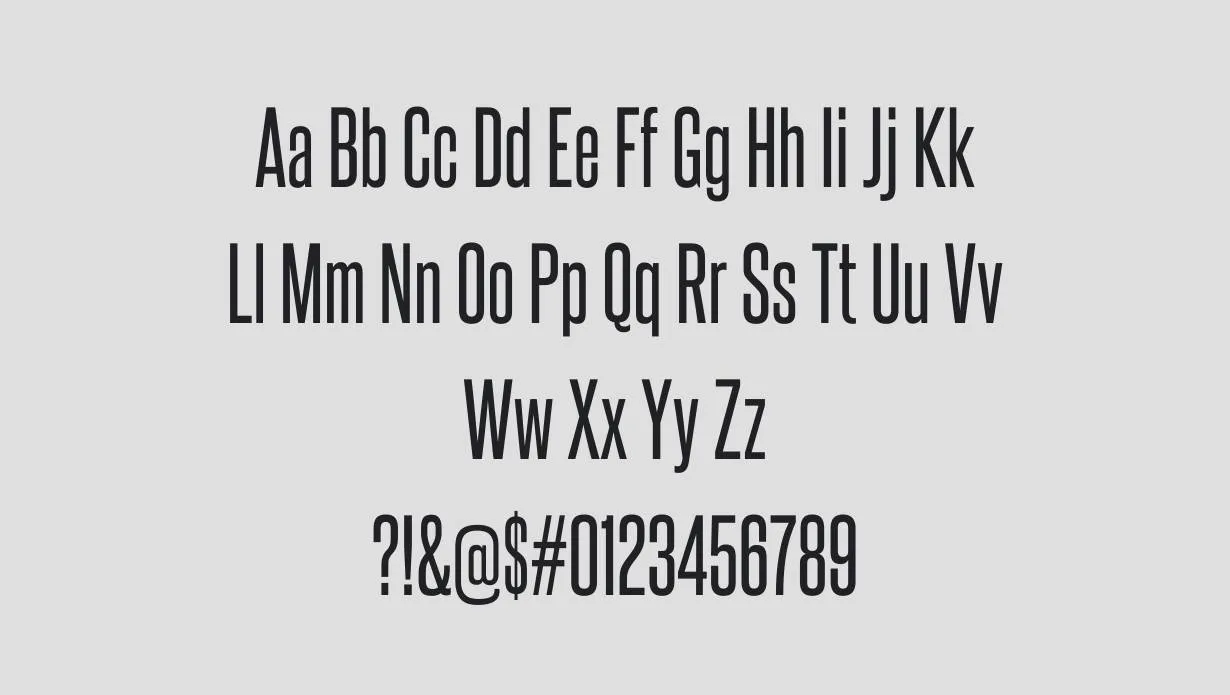
Steelfish Font is a modern and technical typeface, commonly used in tech-related design projects, web design, and technical documentation.
Its clean and geometric letterforms convey precision and efficiency in design work.
| Name | Steelfish Font |
| Designer | Ray Larabie |